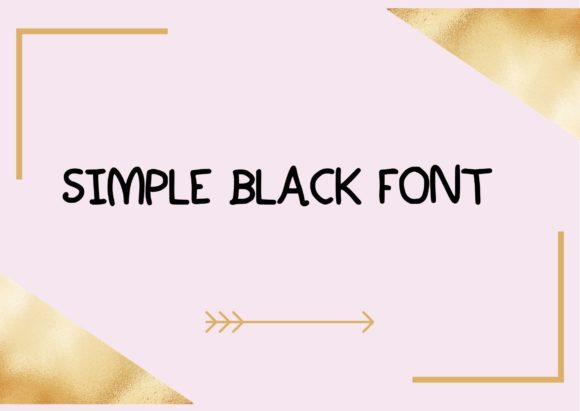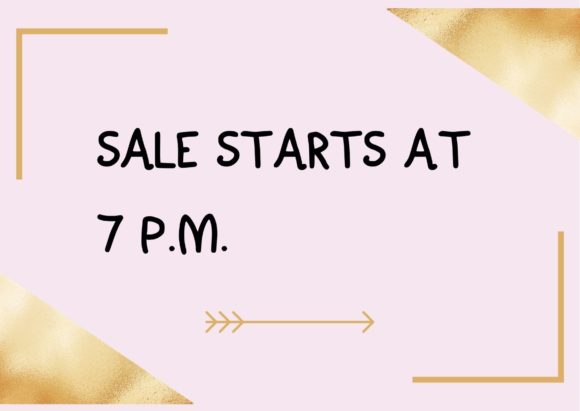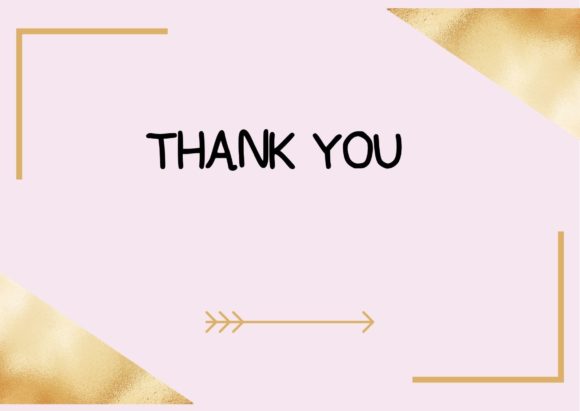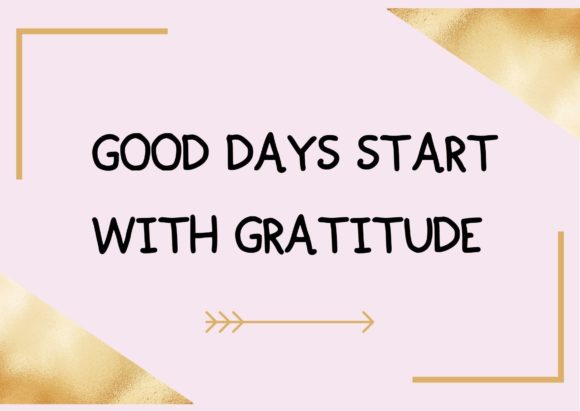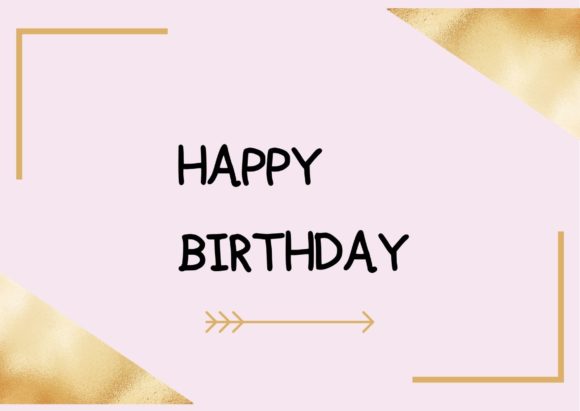
Simple Black Font
About Simple Black Font
Simple Black is a quirky and adaptable handwritten font. Its informal style and casual vibe will make this font a go-to choice for each of the creations that require a relaxed touch.